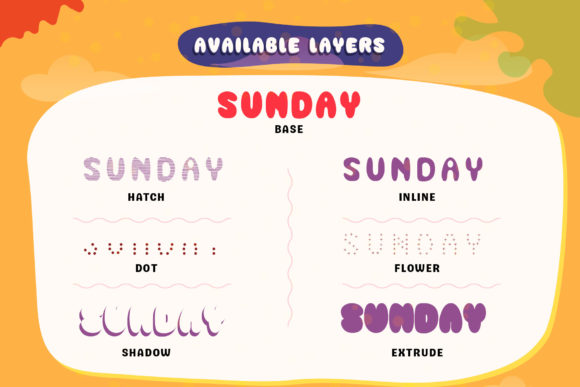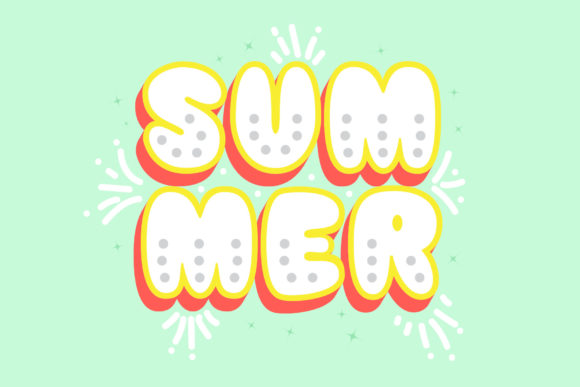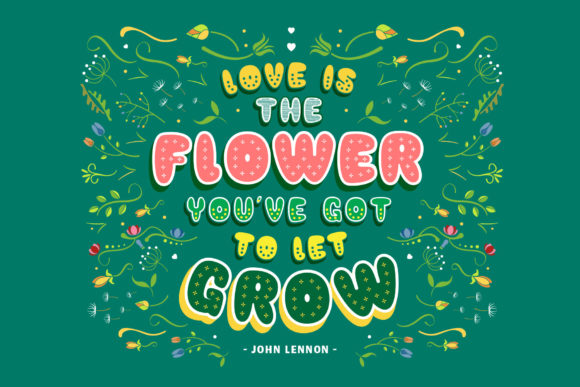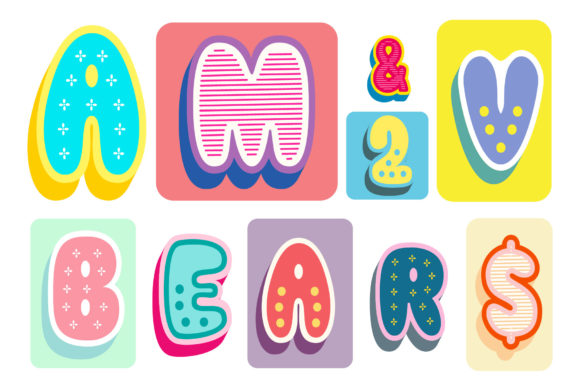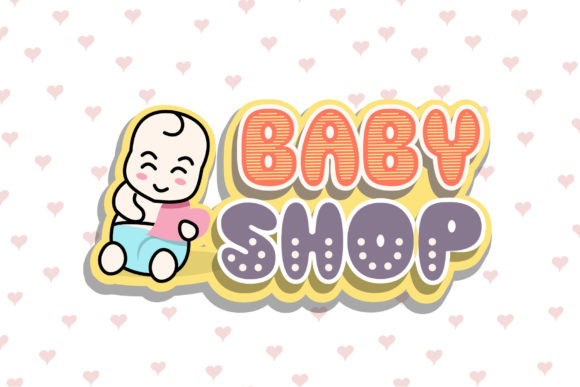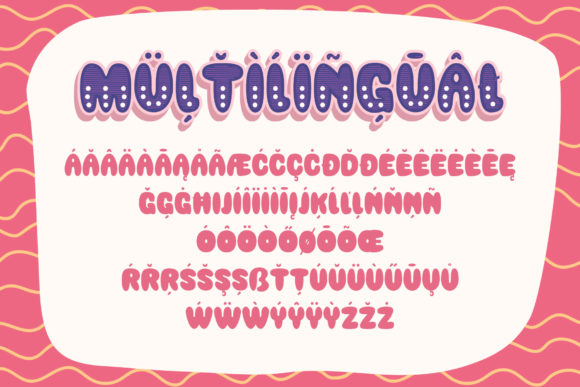
Introducing Gemoy Font: The Perfect Choice for Fun and Creative Projects
Are you a designer, crafter, or educator looking for a font that embodies playfulness and authenticity? Look no further than Gemoy Font! This fun and bubbly display font is perfect for any children’s activity or school project that requires a touch of whimsy and creativity.
What is Gemoy Font?
Gemoy Font is a display font designed to capture the essence of childhood and playfulness. Its unique and quirky design makes it an excellent choice for projects that require a fun and lighthearted touch. Whether you’re creating a children’s book, a school poster, or a craft project, Gemoy Font is sure to add a dash of personality and charm.
Key Features of Gemoy Font
- Playful and Authentic Design: Gemoy Font boasts a unique and playful design that is sure to capture the attention of your audience.
- Perfect for Children’s Projects: Its fun and bubbly design makes it an excellent choice for children’s activity sheets, school posters, and other kid-friendly projects.
- High-Quality Typography: Gemoy Font is designed with high-quality typography in mind, ensuring that your text looks clear and legible.
- Easy to Read: Despite its playful design, Gemoy Font is easy to read, making it perfect for projects that require a balance of fun and functionality.
Why Choose Gemoy Font?
So, why choose Gemoy Font for your next project? Here are just a few reasons:
- Adds a Touch of Whimsy: Gemoy Font adds a touch of whimsy and playfulness to any project, making it perfect for children’s activities and school projects.
- Versatile: Despite its playful design, Gemoy Font is versatile enough to be used in a variety of projects, from posters and flyers to craft projects and children’s books.
Tips and Tricks for Using Gemoy Font
Here are a few tips and tricks for using Gemoy Font:
- Use it for Headings: Gemoy Font is perfect for headings and titles, adding a touch of playfulness and whimsy to your project.
- Pair it with Other Fonts: Gemoy Font pairs well with other fonts, so don’t be afraid to experiment with different font combinations.
- Experiment with Colors: Gemoy Font looks great in a variety of colors, so experiment with different colors to add an extra touch of personality to your project.
| Font Name | Gemoy Font |
| Author | Storic |
In conclusion, Gemoy Font is a fun and bubbly display font that is perfect for any children’s activity or school project. Its playful and authentic design makes it an excellent choice for designers, crafters, and educators looking to add a touch of whimsy and creativity to their projects. With its high-quality typography, ease of use, and versatility, Gemoy Font is sure to become a favorite in your font collection.
Get Ready to Add a Touch of Playfulness to Your Projects!